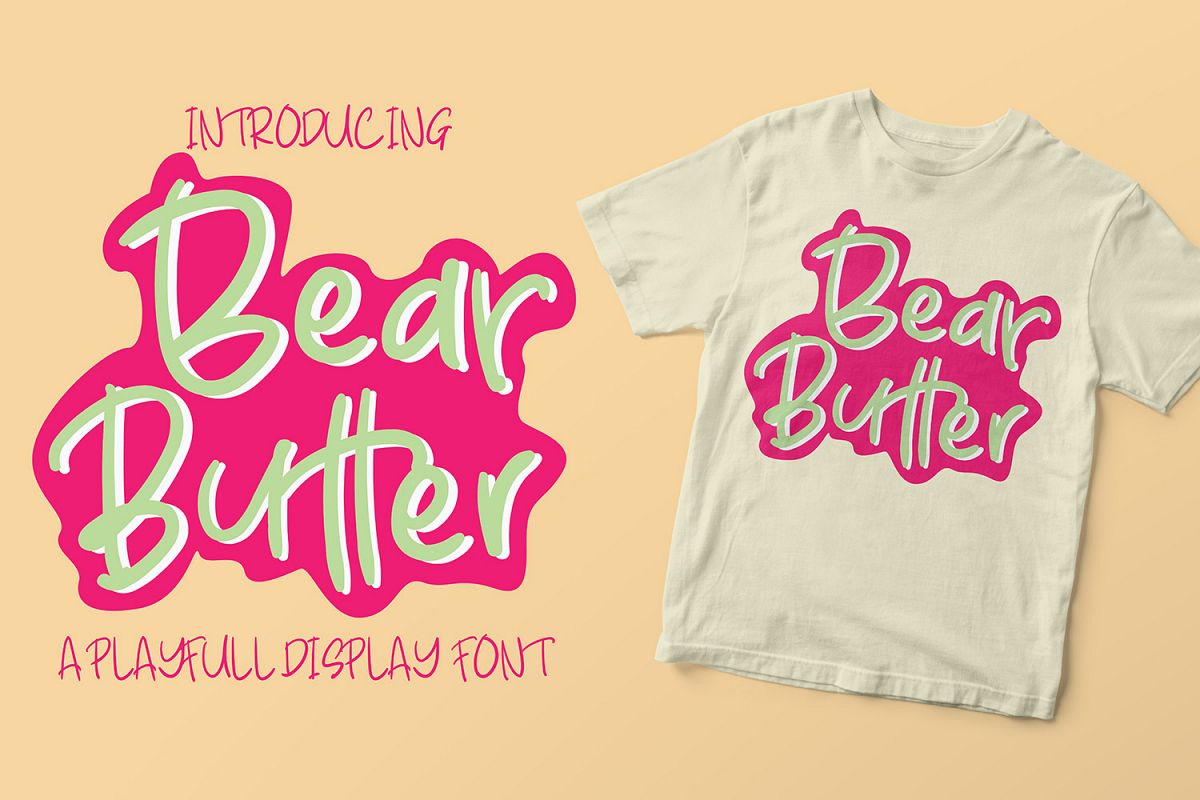
Bear Butter Font
Bear Butter
Bear Butter Is the simple and fun display font. You can use it for every design like t-shirt printing, mug, your children book, and many more
- Ligatures- Alternate Glyphs
- Multilingual Glyphs
- 17 Doodle Extras